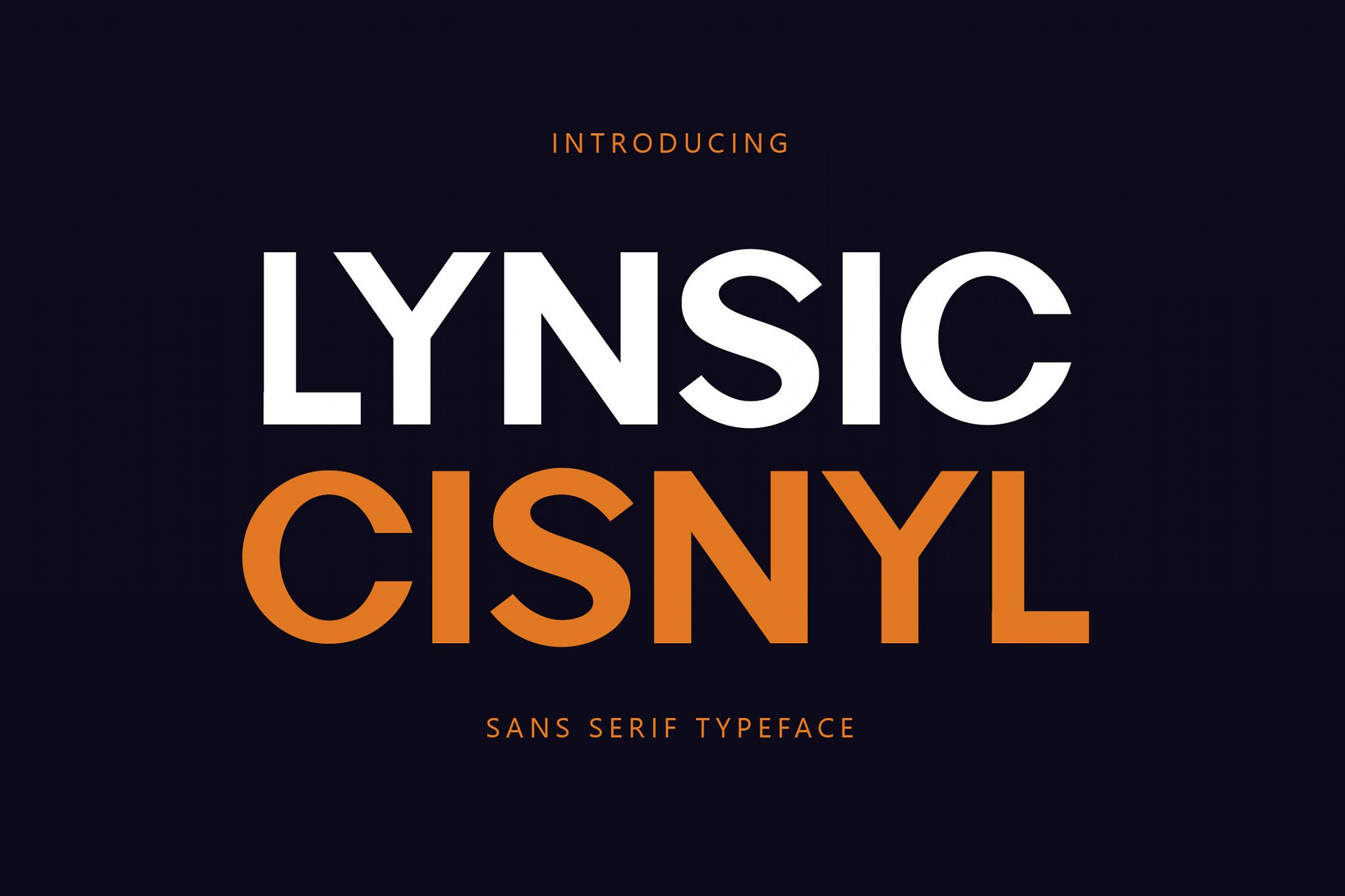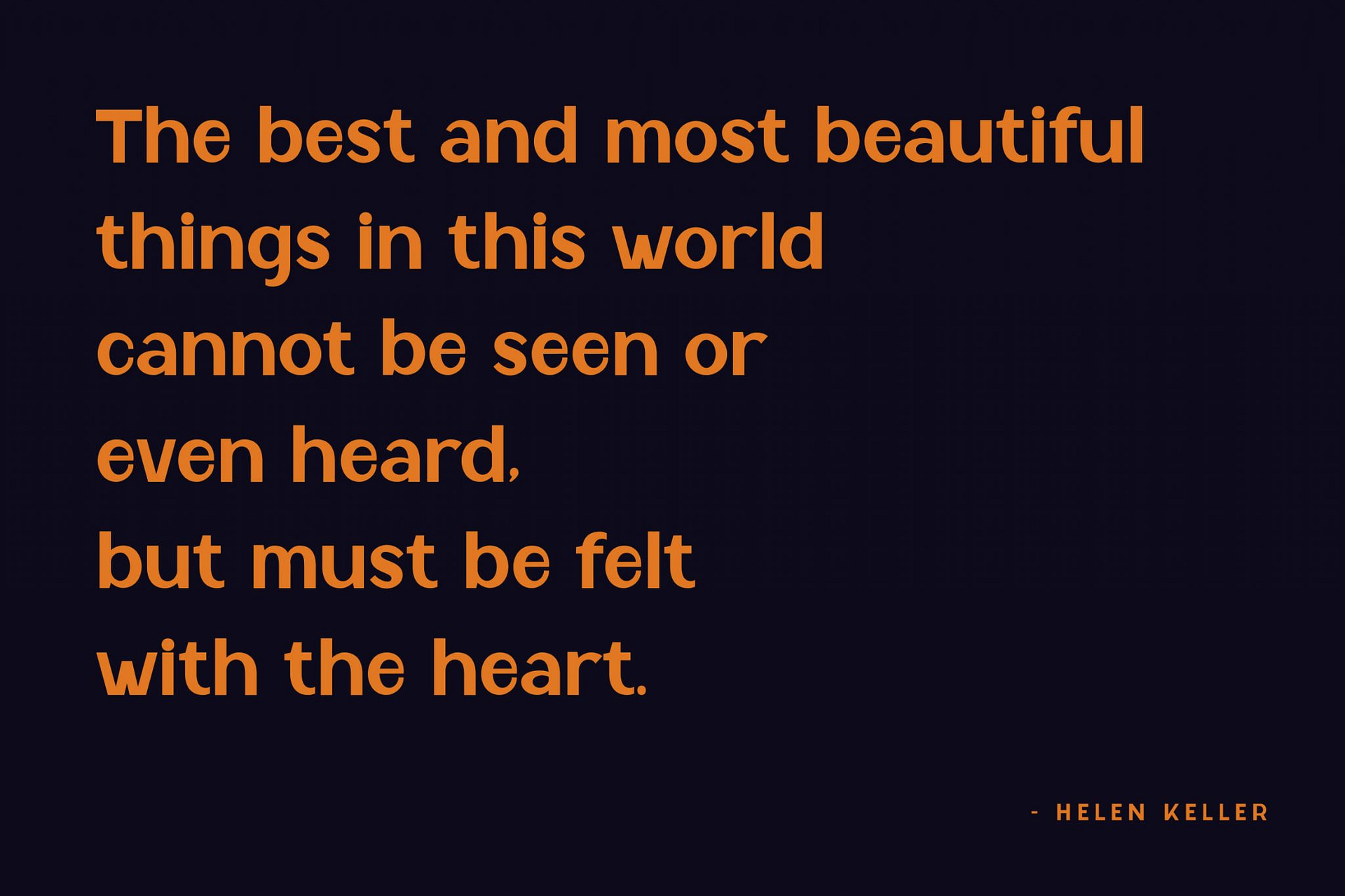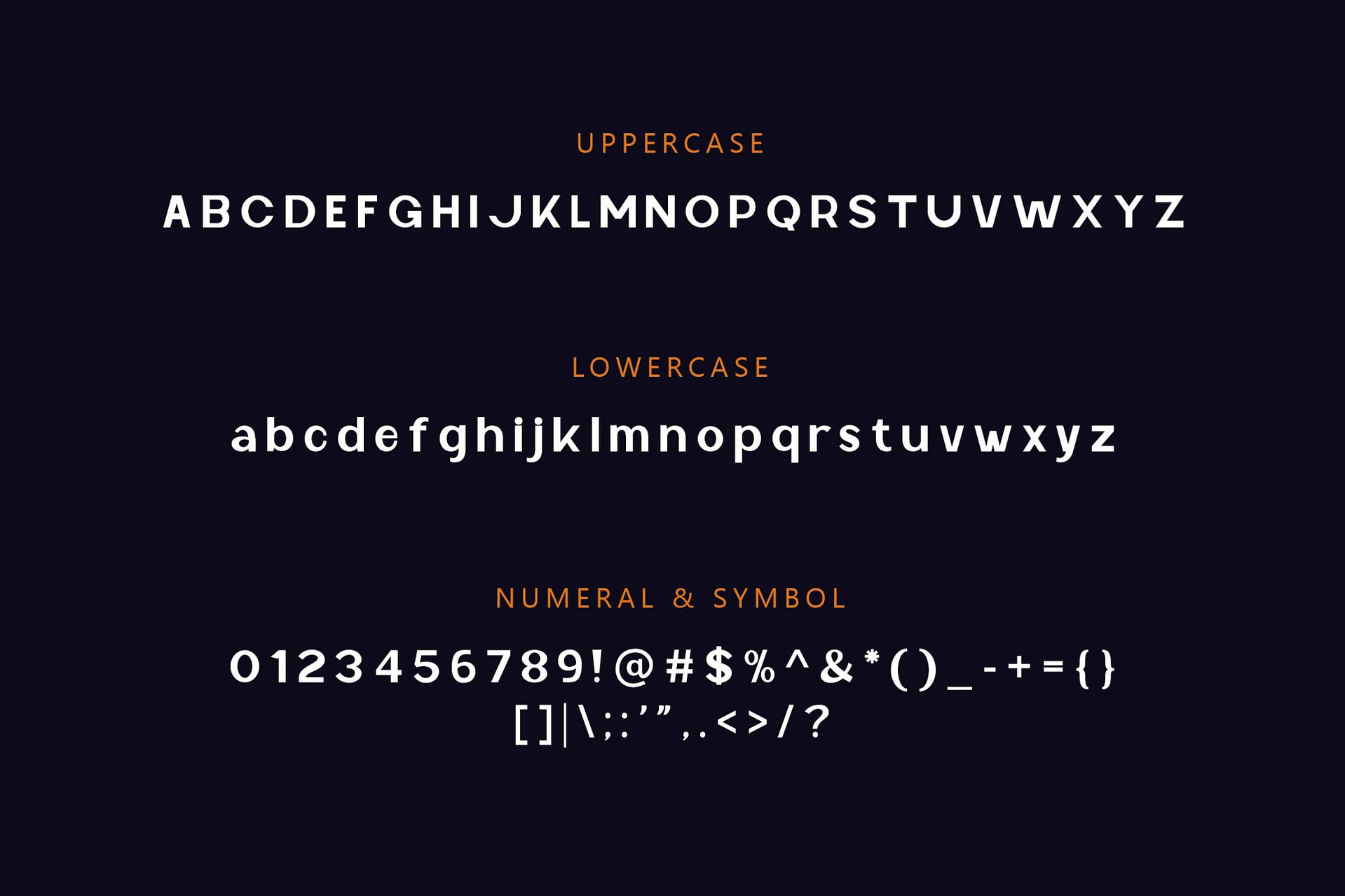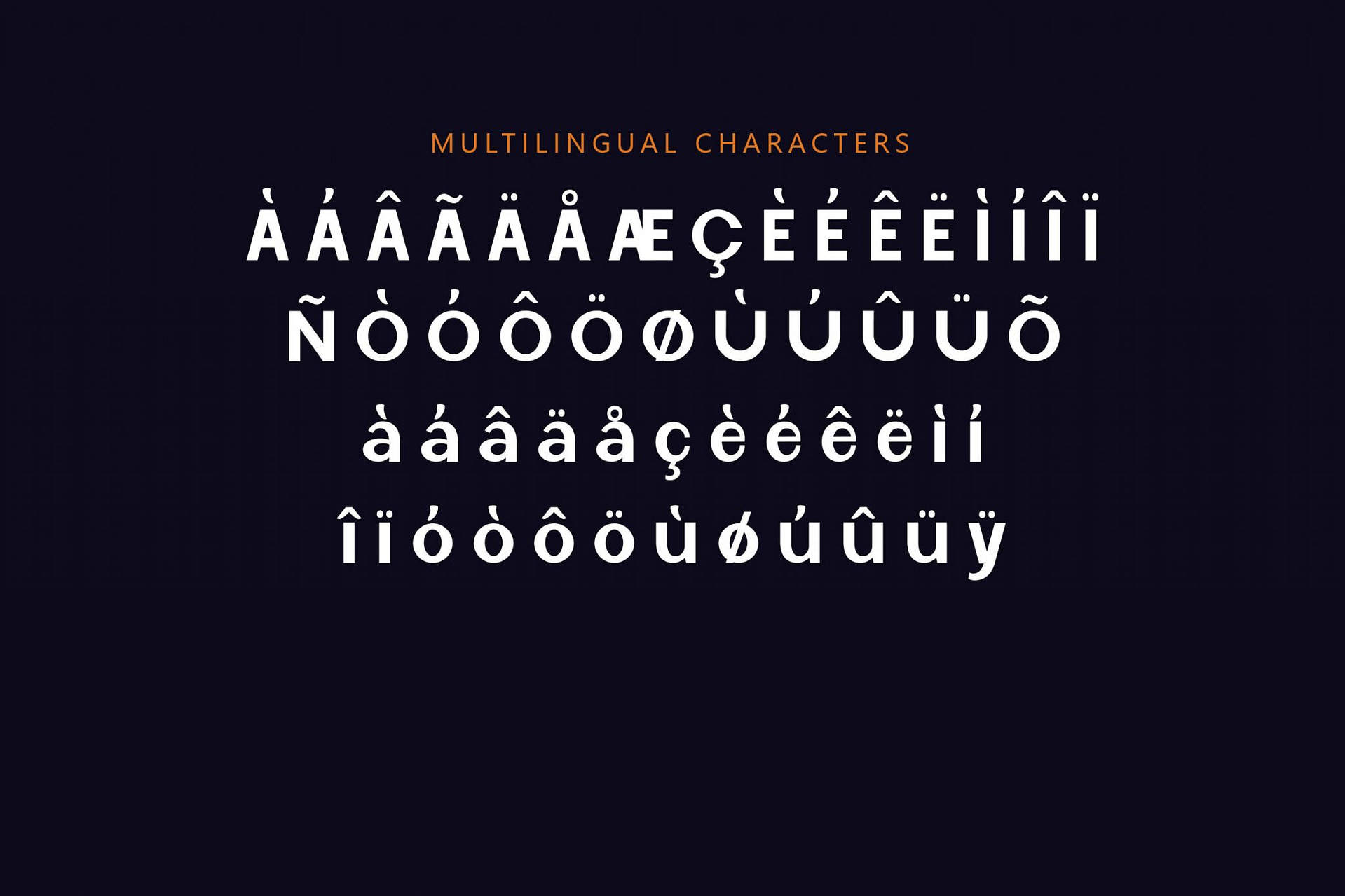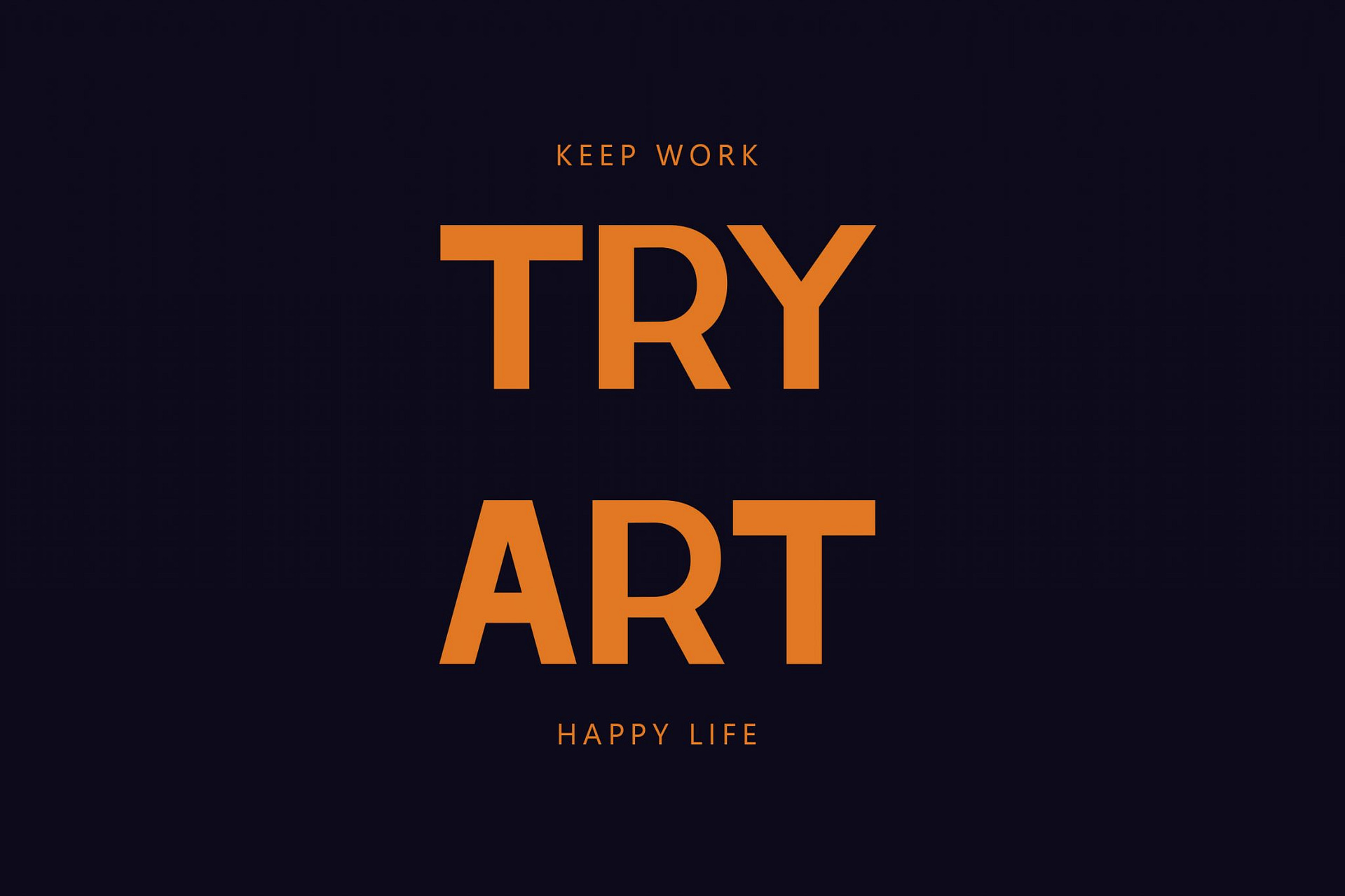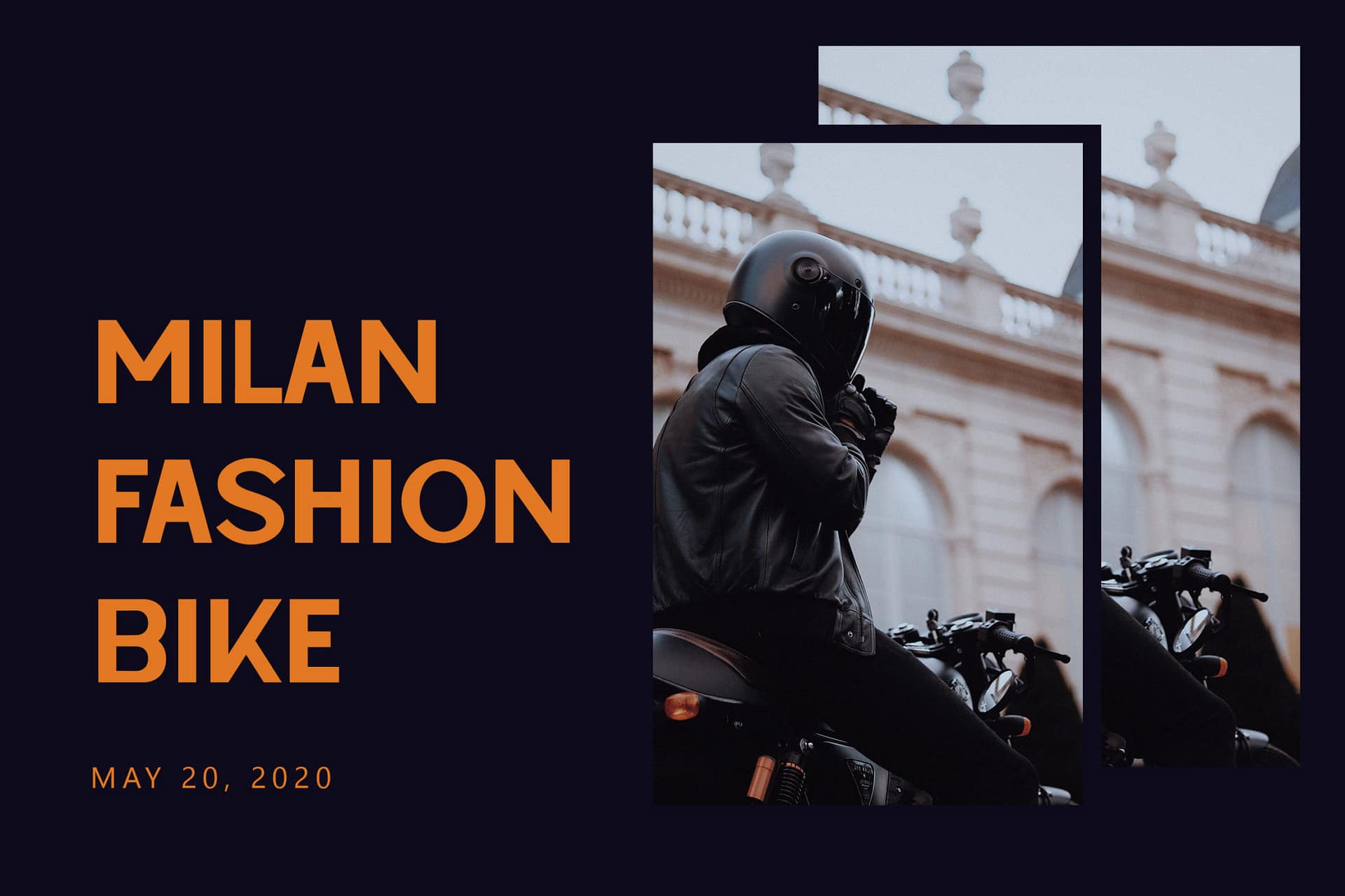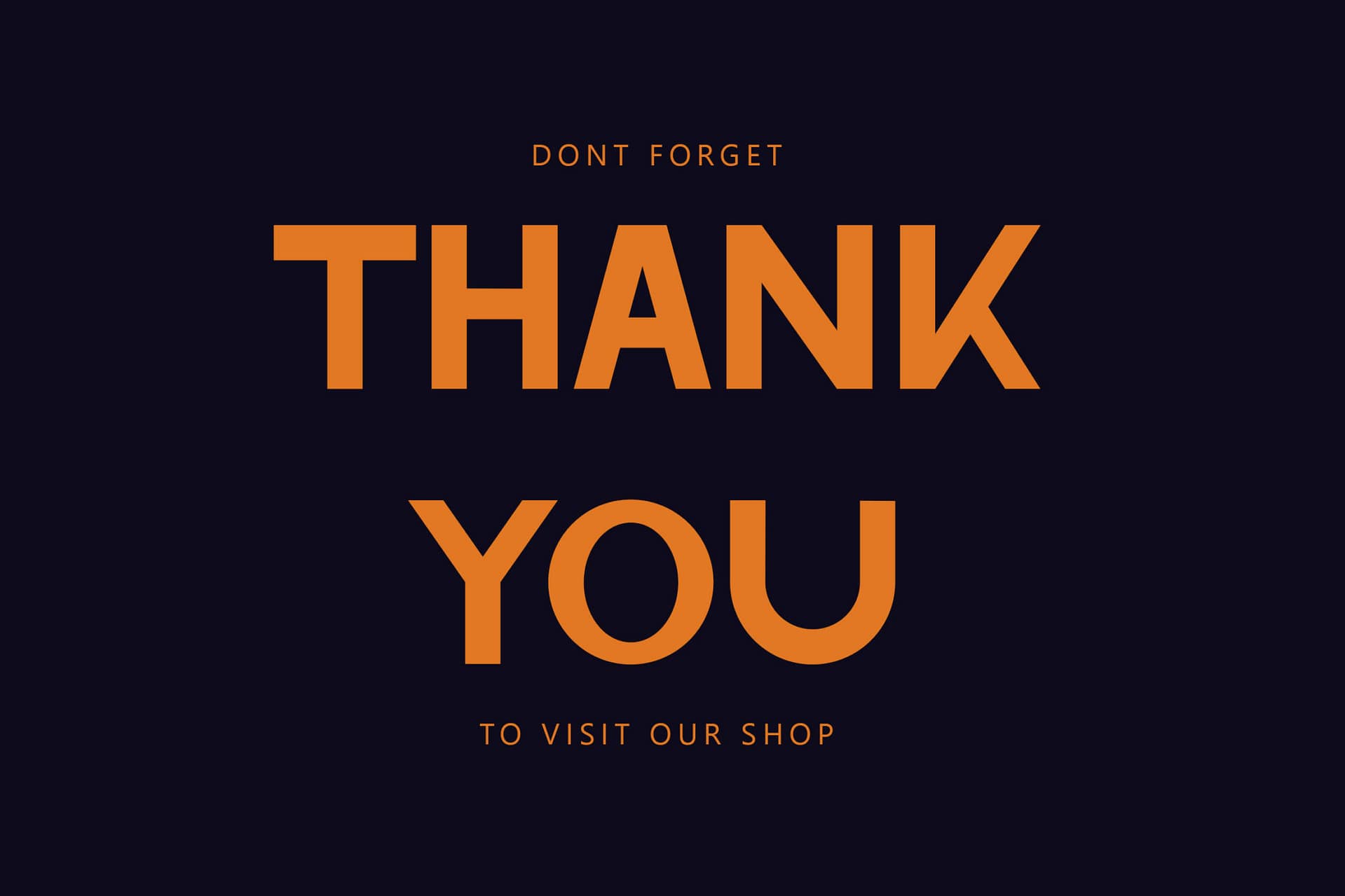
Lynsic Cisnyl – Sans Serif Font. It has a elegant, classy look and beauty. Itโs a great font for fashion, apparel projects, signature, album cover, logo, branding, magazine, social media, & advertisements, but also works great for other projects.
- Basic Latin A-Z and a-z
- Numbers
- Punctions
- Multilinguals